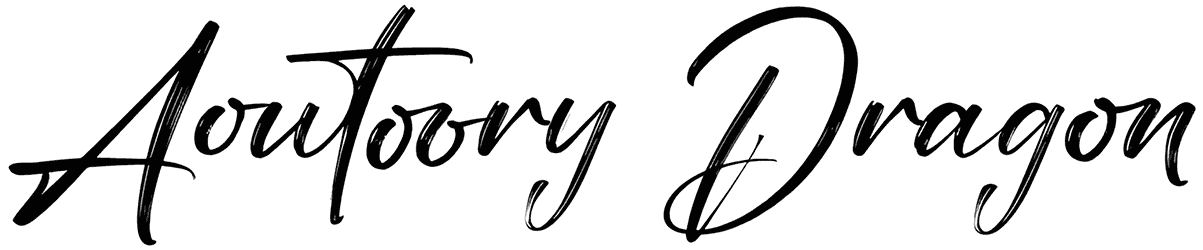
Aoutoory Dragon Font
If you’re a professional designer looking for a new font in your collection and are always busy with your designs, Aoutoory Dragon is just what you need. This script font is similar to a signature written at the end of a letter or engraved on an artwork.
So, it can give exceptional credibility to your texts and expose them with a natural touch. With this simple brush font, you can create your ideas on stationery packaging, wedding cards, or clothes.